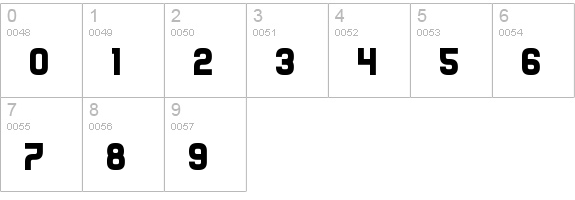
Piston Pressure Font Details
Introducing Piston Pressure font, a dynamic and modern typeface that exudes strength and power. This font is perfect for projects that require a bold and impactful aesthetic, such as sports posters, event invitations, and branding materials. With its unique design and industrial-inspired look, Piston Pressure font is sure to make a lasting impression on any audience. What's even better is that Piston Pressure font is available for free download at FontsMarket.com. This means you can easily access this striking typeface to elevate your designs without any cost. Don't miss out on the opportunity to add Piston Pressure font to your font library and take your projects to the next level. Download it today and unleash the energy of this powerful font in your creative endeavors.